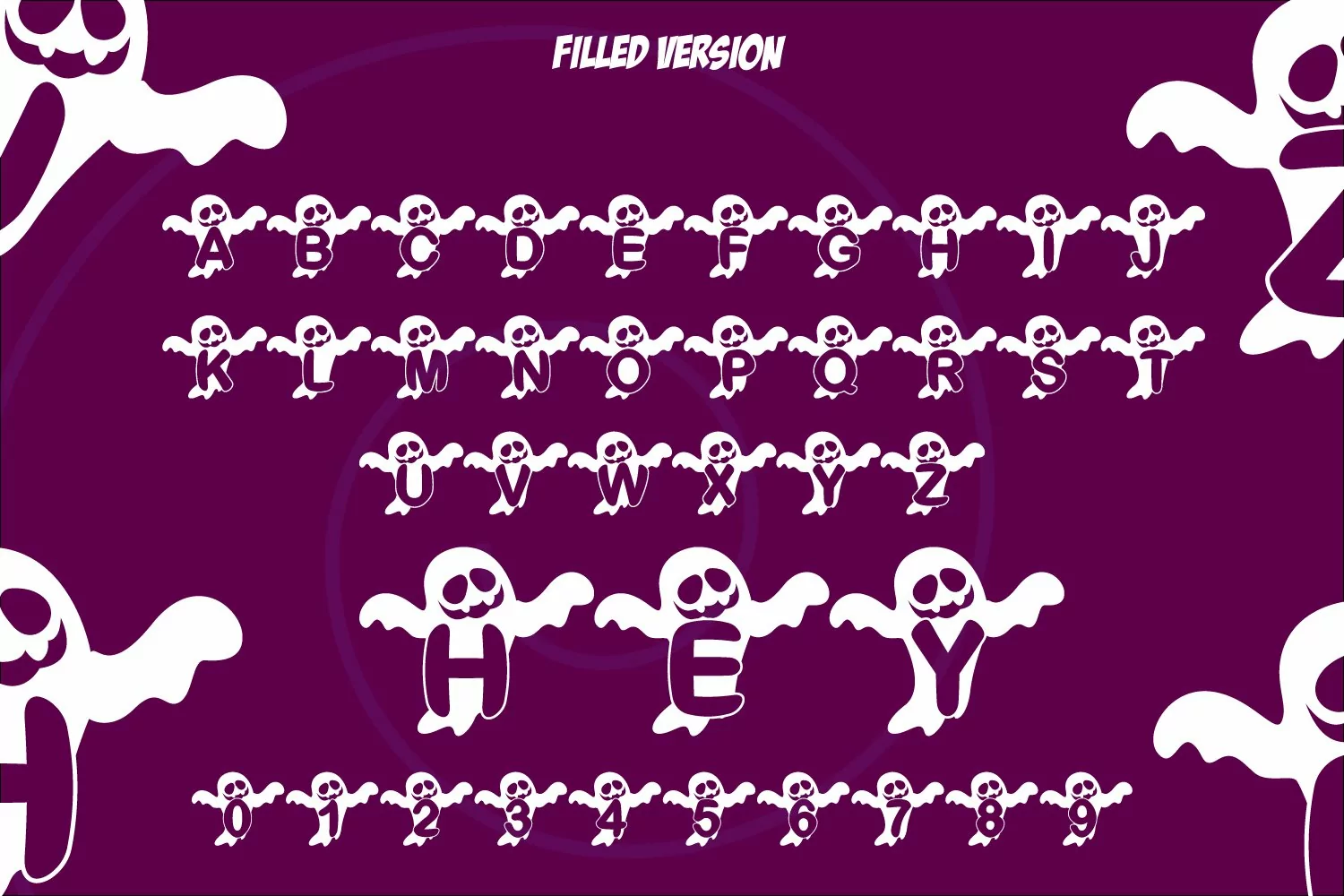
Presenting Cute font for you. Boo Ghost Monogram Font for Halloween 2X Style can be used in tons of projects specially for child and new born projects. You can use it for craft purpose and this will looks great on shirts, printing material and other stuff.
2- UPPER Case only Letters A to Z and 0 to 9
3- Super Cute and Creative